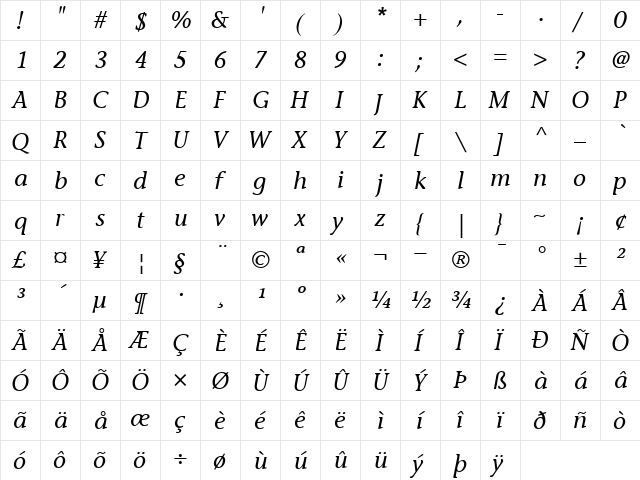
ITCStoneInformal RomanItalic
Design Context for ITCStoneInformal Typeface
ITCStoneInformal offers clean, dependable letterforms without strong stylistic allegiance, making it a practical choice for designers who need flexibility. The dynamic lean of this cut emphasises speed and emphasis in any layout.
Pro Tip: Use ITCStoneInformal for emphasis, pull quotes, and subheadings where its slanted energy can add rhythm to the layout.